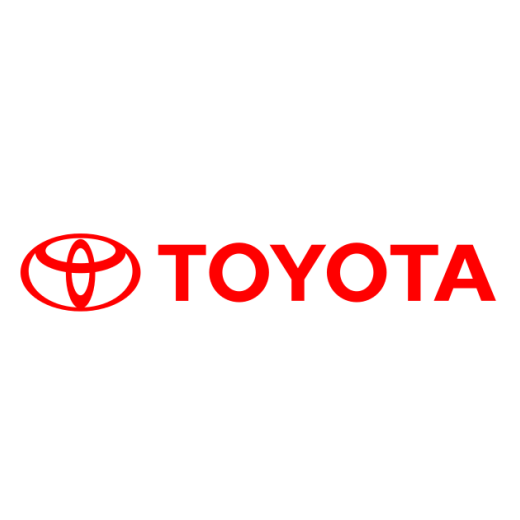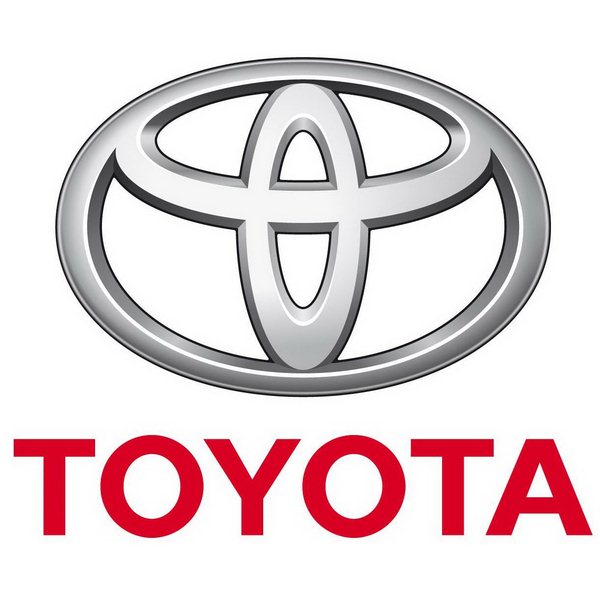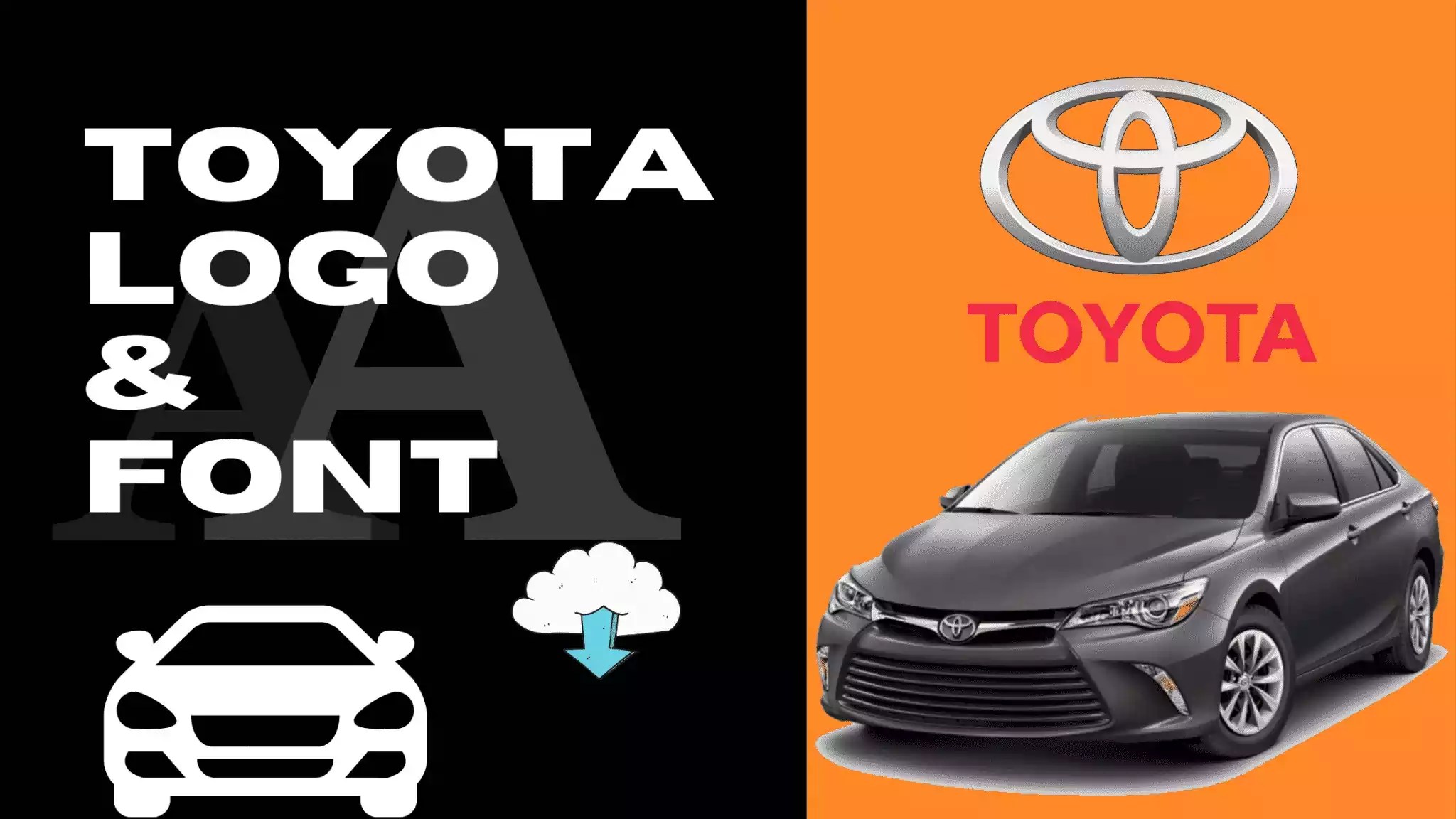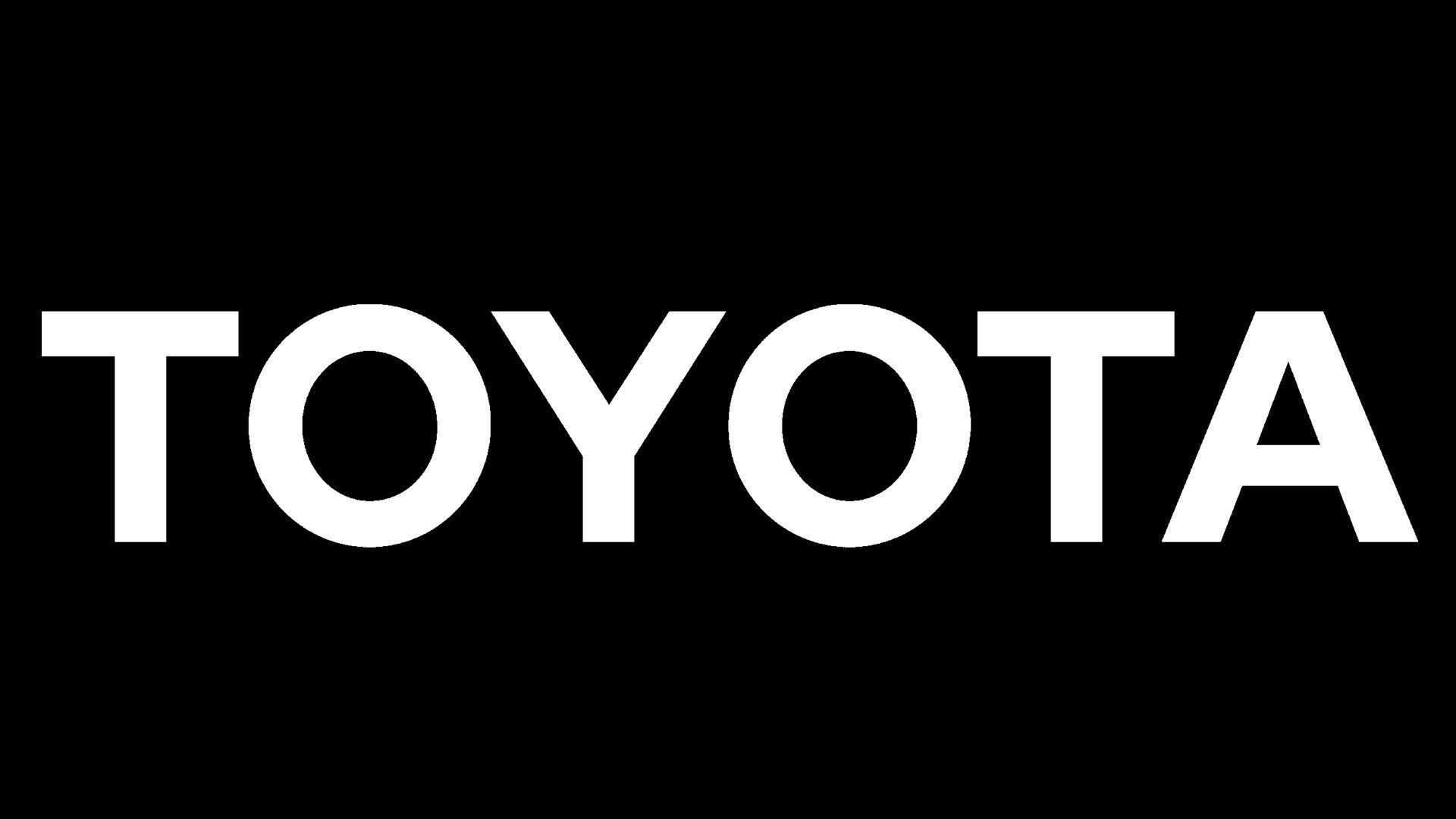
Toyota logo and symbol, meaning, history, PNG What Font Is Toyota Logo Negative space stands for values. The word avenir is french for future. The huge oval stands for living space. A large oval symbolizes life space; What font is the toyota logo? Perpendicular lines represent core values. Avenir 95 black is a variation in the avenir font family. Easily identifiable, the toyota logo features an oriental aesthetic in order to understand. What Font Is Toyota Logo.
Toyota Font Delta Fonts What Font Is Toyota Logo Easily identifiable, the toyota logo features an oriental aesthetic in order to understand its representation. Toyota type can bring messaging to life in many ways across our broad array of vehicles, products and services. Perpendicular lines represent core values. A large oval symbolizes life space; Avenir 95 black is a variation in the avenir font family. Here are some tips. What Font Is Toyota Logo.
Toyota Logo and sign, new logo meaning and history, PNG, SVG What Font Is Toyota Logo Easily identifiable, the toyota logo features an oriental aesthetic in order to understand its representation. A large oval symbolizes life space; Avenir 95 black is a variation in the avenir font family. Negative space stands for values. Here are some tips for using our. Perpendicular lines represent core values. The toyota logo appears to have been designed based on avenir. What Font Is Toyota Logo.
Toyota Logo Font UpFonts What Font Is Toyota Logo What font is the toyota logo? Negative space stands for values. Avenir 95 black is a variation in the avenir font family. The word avenir is french for future. Toyota type can bring messaging to life in many ways across our broad array of vehicles, products and services. The huge oval stands for living space. A large oval symbolizes life. What Font Is Toyota Logo.
Toyota Logo Wallpapers Top Free Toyota Logo Backgrounds WallpaperAccess What Font Is Toyota Logo The huge oval stands for living space. Negative space stands for values. The toyota logo appears to have been designed based on avenir 95 black. Toyota type can bring messaging to life in many ways across our broad array of vehicles, products and services. Perpendicular lines represent core values. The word avenir is french for future. A large oval symbolizes. What Font Is Toyota Logo.
Toyota Logo and symbol, meaning, history, sign. What Font Is Toyota Logo Easily identifiable, the toyota logo features an oriental aesthetic in order to understand its representation. Toyota type can bring messaging to life in many ways across our broad array of vehicles, products and services. The word avenir is french for future. Here are some tips for using our. The huge oval stands for living space. What font is the toyota. What Font Is Toyota Logo.
Toyota Logo, HD Png, Meaning, Information What Font Is Toyota Logo The toyota logo appears to have been designed based on avenir 95 black. Easily identifiable, the toyota logo features an oriental aesthetic in order to understand its representation. The word avenir is french for future. Here are some tips for using our. Negative space stands for values. Perpendicular lines represent core values. What font is the toyota logo? The toyota. What Font Is Toyota Logo.
Toyota logo and symbol, meaning, history, PNG, brand What Font Is Toyota Logo The huge oval stands for living space. What font is the toyota logo? The word avenir is french for future. A large oval symbolizes life space; Avenir 95 black is a variation in the avenir font family. The toyota logo appears to have been designed based on avenir 95 black. Perpendicular lines represent core values. The toyota logo features a. What Font Is Toyota Logo.
Revealed, Here Are the Fonts Toyota Uses on Its Logo HipFonts What Font Is Toyota Logo The huge oval stands for living space. The toyota logo appears to have been designed based on avenir 95 black. Toyota type can bring messaging to life in many ways across our broad array of vehicles, products and services. The toyota logo features a distinctly eastern approach to the visualization of its meaning. Easily identifiable, the toyota logo features an. What Font Is Toyota Logo.
Fonts Used By Car Manufacturers Playground What Font Is Toyota Logo Negative space stands for values. Toyota type can bring messaging to life in many ways across our broad array of vehicles, products and services. A large oval symbolizes life space; What font is the toyota logo? The word avenir is french for future. Easily identifiable, the toyota logo features an oriental aesthetic in order to understand its representation. The toyota. What Font Is Toyota Logo.
Toyota Text Logo What Font Is Toyota Logo The huge oval stands for living space. Perpendicular lines represent core values. What font is the toyota logo? The toyota logo features a distinctly eastern approach to the visualization of its meaning. Avenir 95 black is a variation in the avenir font family. The word avenir is french for future. Negative space stands for values. A large oval symbolizes life. What Font Is Toyota Logo.
Toyota Logo and sign, new logo meaning and history, PNG, SVG What Font Is Toyota Logo The toyota logo features a distinctly eastern approach to the visualization of its meaning. Avenir 95 black is a variation in the avenir font family. The word avenir is french for future. Negative space stands for values. Easily identifiable, the toyota logo features an oriental aesthetic in order to understand its representation. What font is the toyota logo? The toyota. What Font Is Toyota Logo.